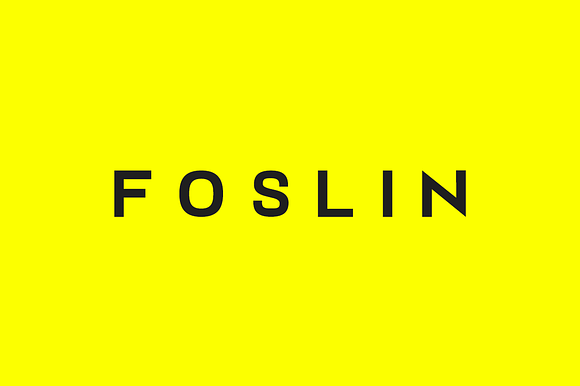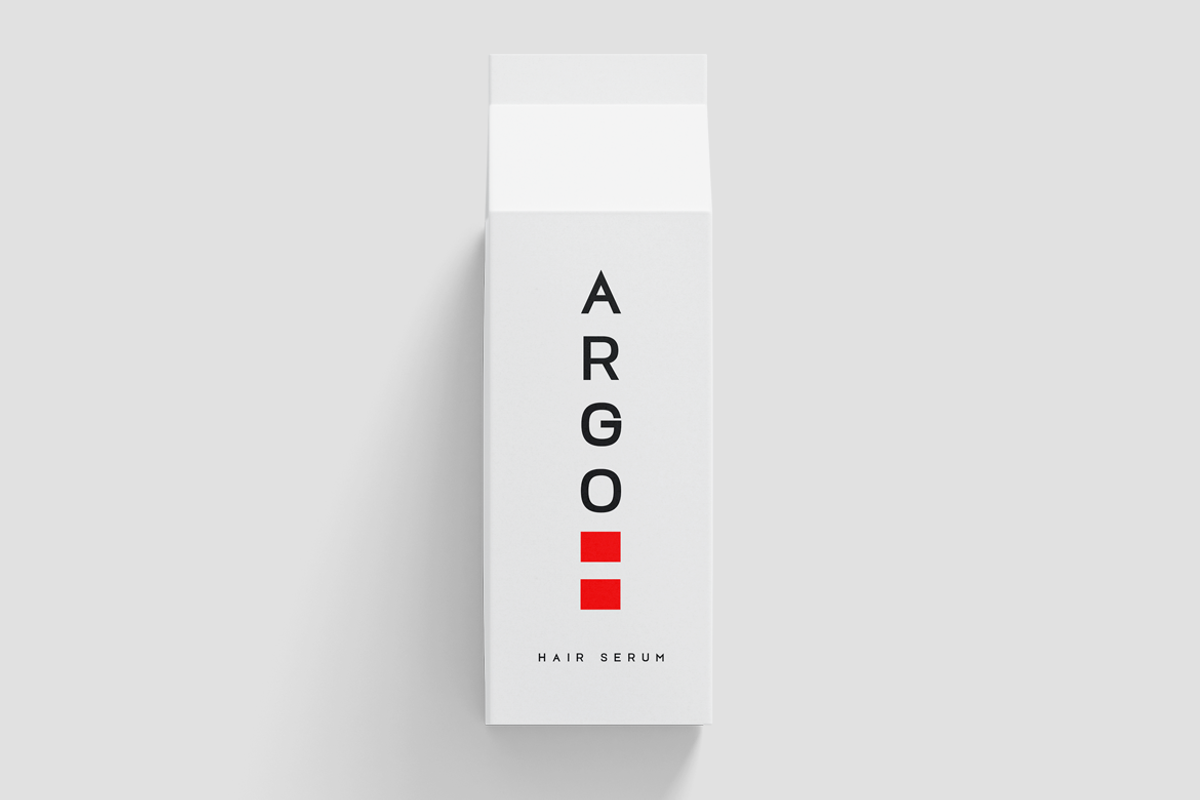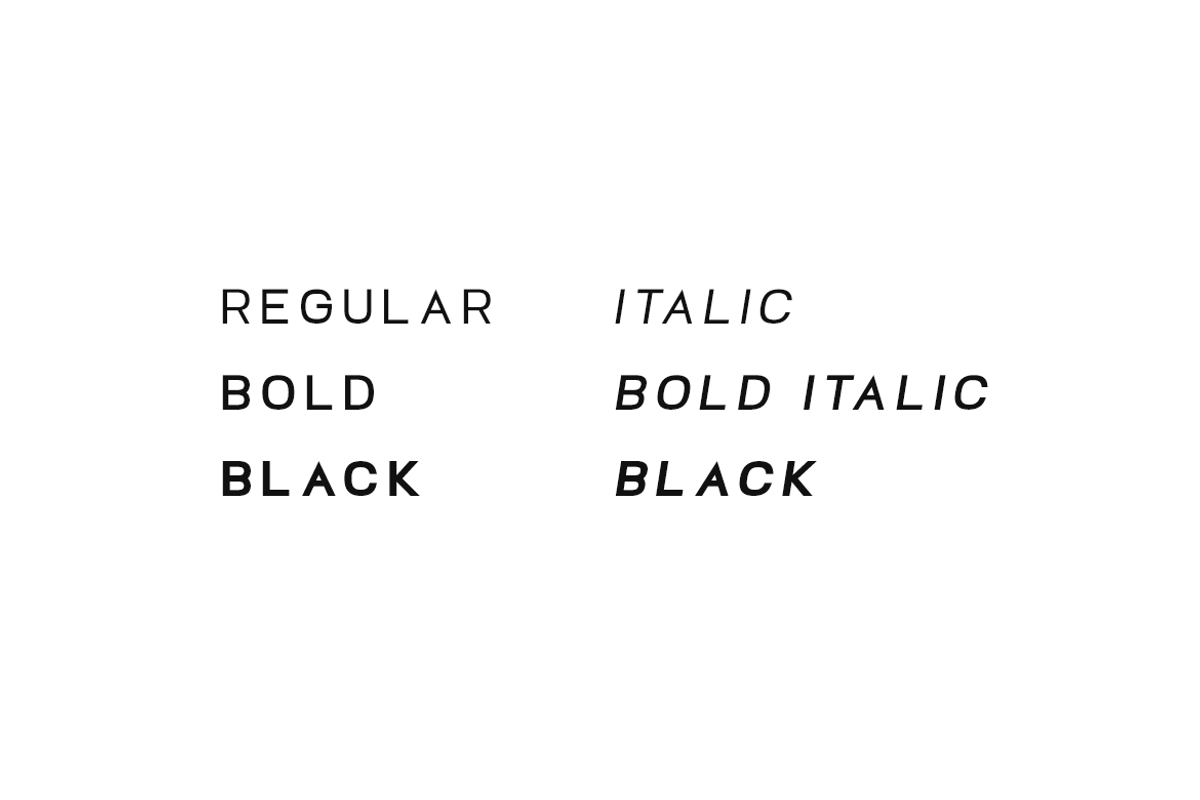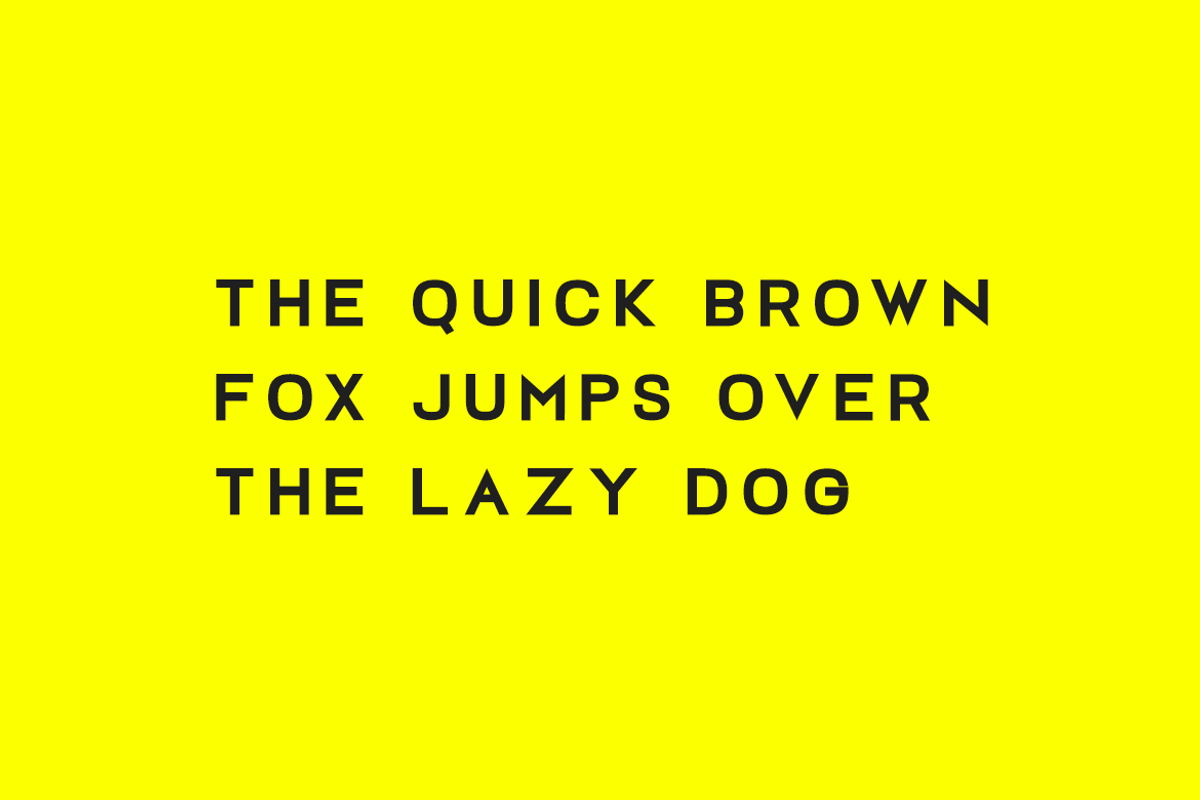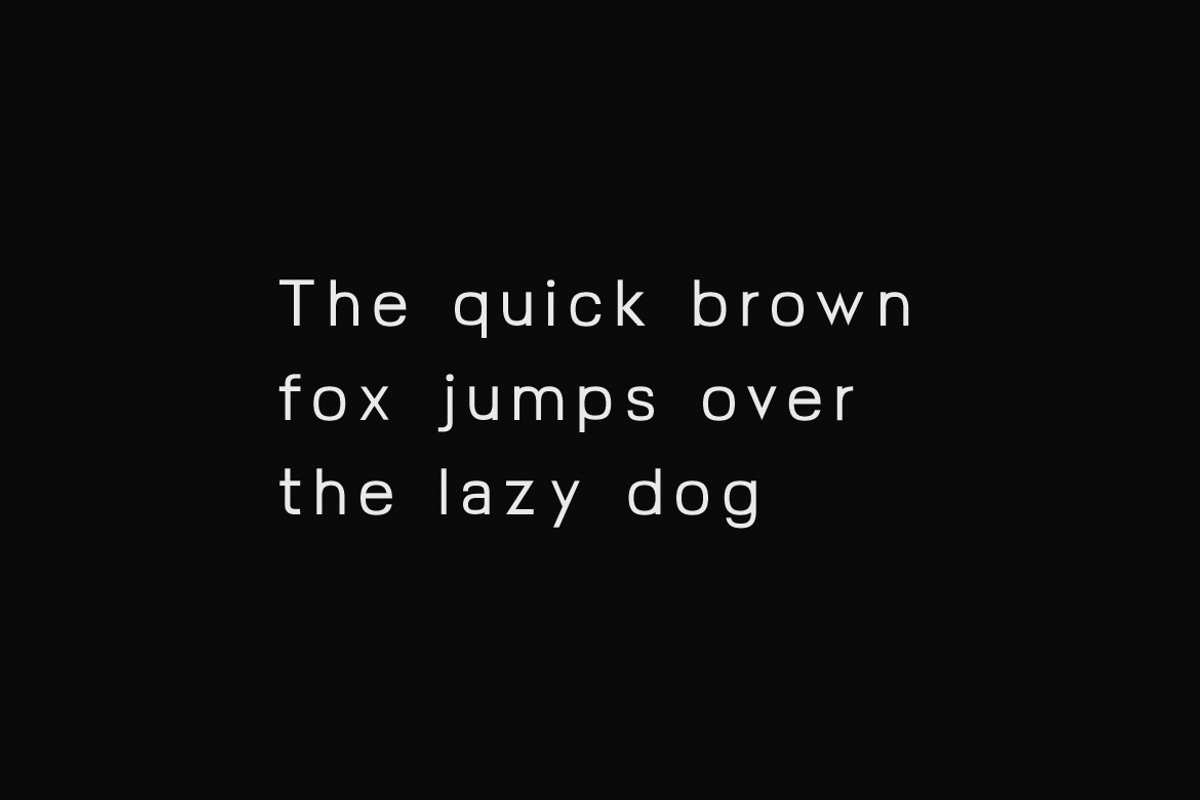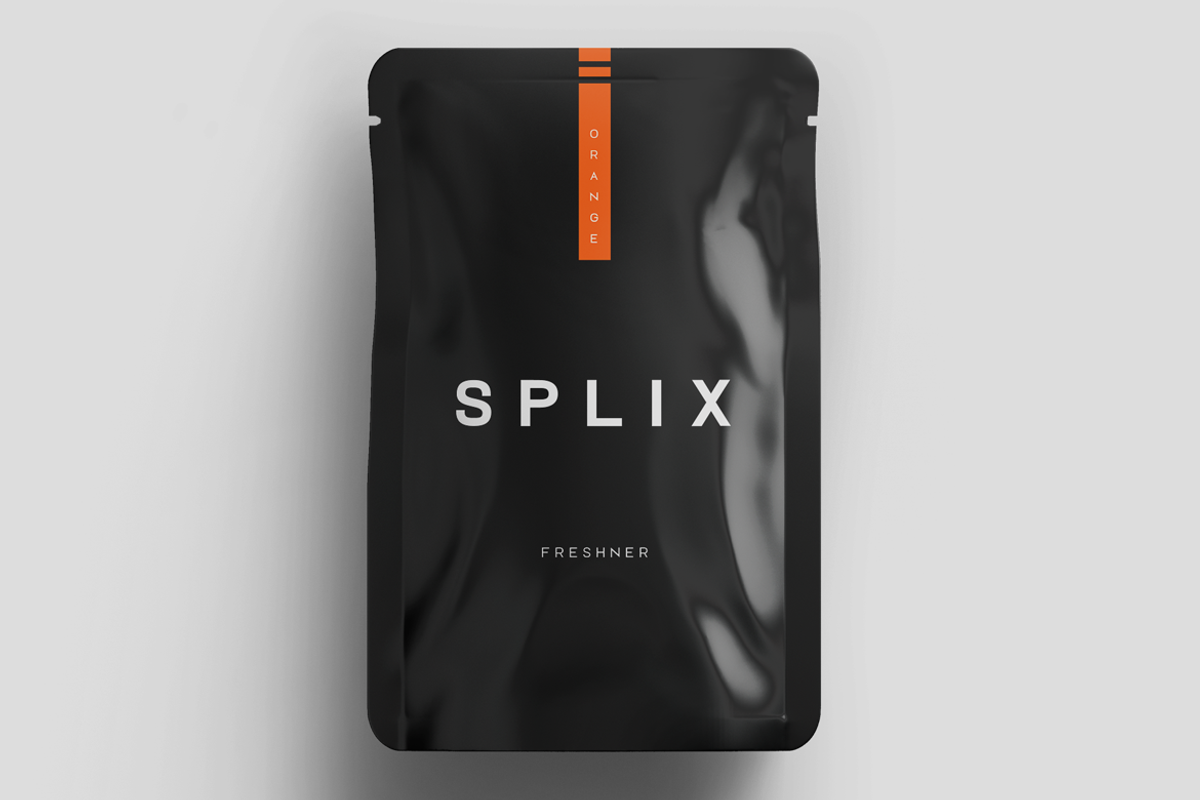
FOSLIN - Minimal Sans-Serif Typeface
FOSLIN - A minimal sans-serif typeface with the potential of being a perfect display / branding / logo font. Just one look and you will notice the unique flair of this typeface which will make it perfect for logotypes, headlines, branding materials, corporate identities, web & print purposes without any limits. Adding extra letter-spacing will make this font perfect for minimal headlines and logotypes as shown in demo graphics.
FOSLIN comes with a total of 6 fonts having 3 weights (Regular / Bold / Black as well as Italic versions of all weights). The pack contains OTF, TTF and Web Fonts (all EOT, SVG, TTF, WOFF included).